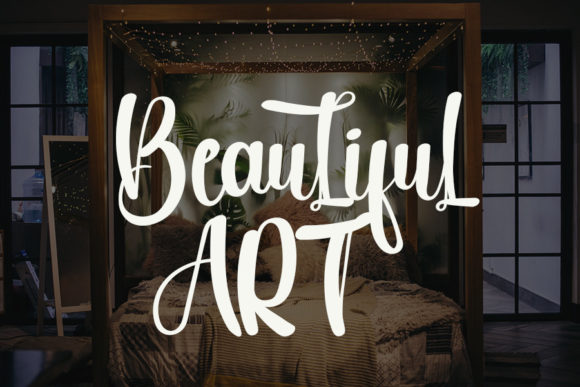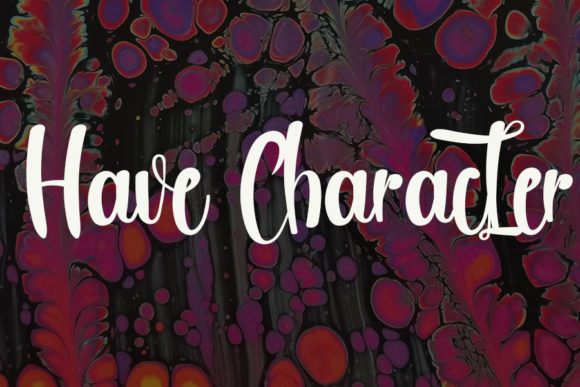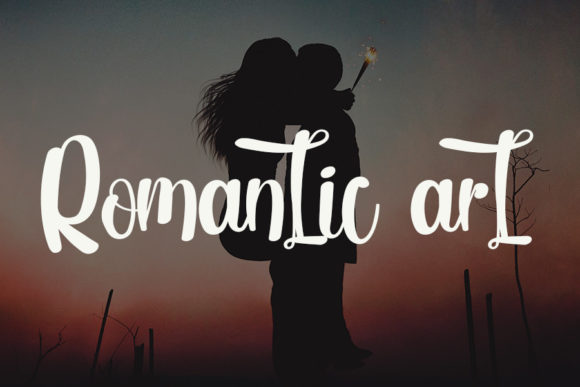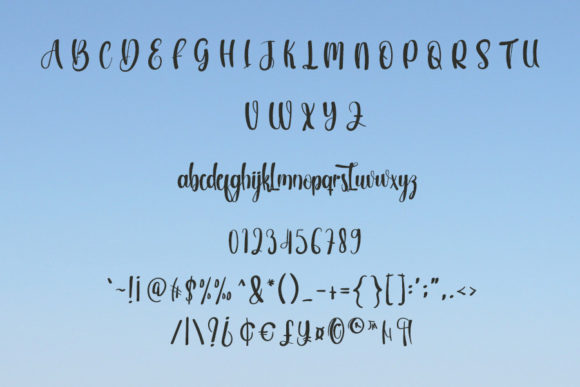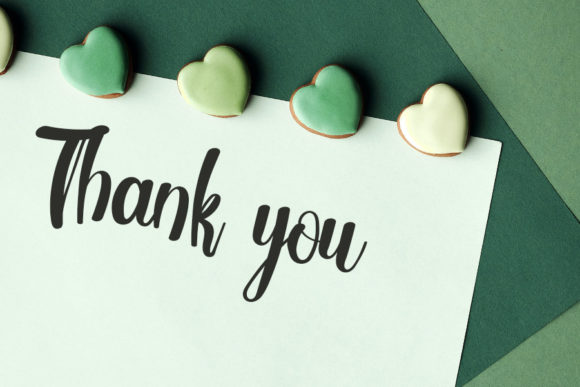
Introducing Handmade Painting Font: Elevate Your Designs with a Touch of Classic Elegance
In the world of typography, a well-crafted font can make all the difference in transforming a design from ordinary to extraordinary. For designers and crafters seeking a unique and modern handwritten font with a classic twist, look no further than Handmade Painting Font. This beautiful, balanced, and varied font is inspired by traditional calligraphy, offering a fresh and spotless form that will enhance the beauty of your projects.
The Inspiration Behind Handmade Painting Font
Handmade Painting Font draws its inspiration from the timeless elegance of classic calligraphy. The creator of this font sought to capture the essence of traditional calligraphic techniques, while infusing it with a modern vibe that appeals to contemporary designers. The result is a font that strikes the perfect balance between classic sophistication and modern flair.
Key Features of Handmade Painting Font
- Balanced and Varied: Handmade Painting Font boasts a well-balanced design, with characters that are neither too thin nor too thick. This balance, combined with a varied range of letterforms, adds visual interest and depth to your designs.
- Modern Vibe: With its clean lines and spotless form, this font exudes a modern aesthetic that will appeal to designers seeking a fresh look.
- Classic Inspiration: The font’s roots in traditional calligraphy are evident in its elegant letterforms and classic feel.
Why Choose Handmade Painting Font?
- Unique and Distinctive: This font’s blend of classic and modern elements makes it stand out from more generic fonts, ensuring your designs will grab attention.
- Easy to Read: The balanced design and clear letterforms of Handmade Painting Font ensure that your text is easy to read, even at smaller sizes.
In conclusion, Handmade Painting Font is a versatile and elegant handwritten font that brings a touch of classic sophistication to modern design. Its balanced and varied design, combined with a modern vibe and spotless form, make it an excellent choice for designers and crafters seeking to elevate their projects. With its wide range of applications and ease of use, Handmade Painting Font is sure to become a go-to font in your design arsenal.